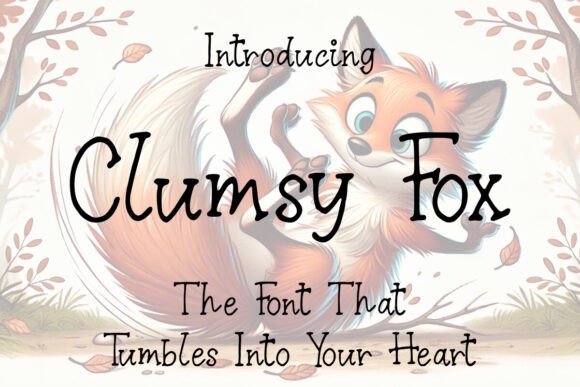
Introducing Clumsy Fox Font: The Playful, Hand-Drawn Font with a Wobbly Charm
Are you tired of using the same old fonts in your designs? Do you want to add a touch of fun and personality to your projects? Look no further than Clumsy Fox Font, a playful, hand-drawn font that’s sure to bring a smile to your face. With its slightly uneven strokes and endearing quirks, this font is perfect for creating whimsical branding, kid-friendly content, and more.
What is Clumsy Fox Font?
Clumsy Fox Font is a unique, hand-drawn font that’s designed to look like it’s been drawn by a playful, yet slightly clumsy, fox. Each letter has a wobbly charm that’s sure to make your designs stand out from the crowd. The font features slightly uneven strokes, quirky letterforms, and a general sense of playfulness that’s hard to find in more traditional fonts.
Key Features of Clumsy Fox Font
- Hand-drawn design: Each letter has been carefully drawn by hand to give the font a unique, personal touch.
- Wobbly charm: The font’s slightly uneven strokes and quirky letterforms give it a playful, endearing quality.
- Perfect for kids: Clumsy Fox Font is a great choice for creating content for kids, including children’s books, educational materials, and more.
- Whimsical branding: The font’s playful personality makes it a great choice for branding projects that need to stand out from the crowd.
- Imperfectly perfect: The font’s quirky design makes it perfect for designers who want to add a touch of imperfection to their projects.
10 Creative Ways to Use Clumsy Fox Font
- Children’s book illustrations: Clumsy Fox Font is a great choice for illustrating children’s books, with its playful personality and kid-friendly charm.
- Whimsical branding: Use the font to create unique, eye-catching branding for your business or product.
- Social media graphics: Add a touch of fun to your social media graphics with Clumsy Fox Font.
- Party invitations: The font’s playful personality makes it perfect for creating fun, festive party invitations.
- Educational materials: Clumsy Fox Font is a great choice for creating educational materials, such as worksheets, activity sheets, and more.
- Logo design: Use the font to create a unique, memorable logo for your business or product.
- Packaging design: Add a touch of personality to your packaging design with Clumsy Fox Font.
- Web design: Use the font to create a playful, eye-catching website that’s sure to stand out from the crowd.
- Email newsletters: Add a touch of fun to your email newsletters with Clumsy Fox Font.
- Advertising: The font’s playful personality makes it perfect for creating eye-catching ads that grab attention.
The Benefits of Using Clumsy Fox Font
So why should you choose Clumsy Fox Font for your next project? Here are just a few benefits of using this unique, playful font:
- Adds personality: Clumsy Fox Font adds a touch of personality to your designs, making them more engaging and memorable.
- Stand out from the crowd: The font’s unique design makes it perfect for designers who want to stand out from the crowd.
- Kid-friendly: Clumsy Fox Font is a great choice for creating content for kids, with its playful personality and endearing charm.
- Versatile: The font can be used for a wide range of projects, from branding and advertising to packaging and web design.
In conclusion, Clumsy Fox Font is a unique, playful font that’s perfect for designers who want to add a touch of fun and personality to their projects. With its slightly uneven strokes and endearing quirks, this font is sure to bring a smile to your face. Whether you’re creating for kids, whimsical branding, or just want something a little imperfectly perfect, Clumsy Fox Font is here to stumble its way into your projects!